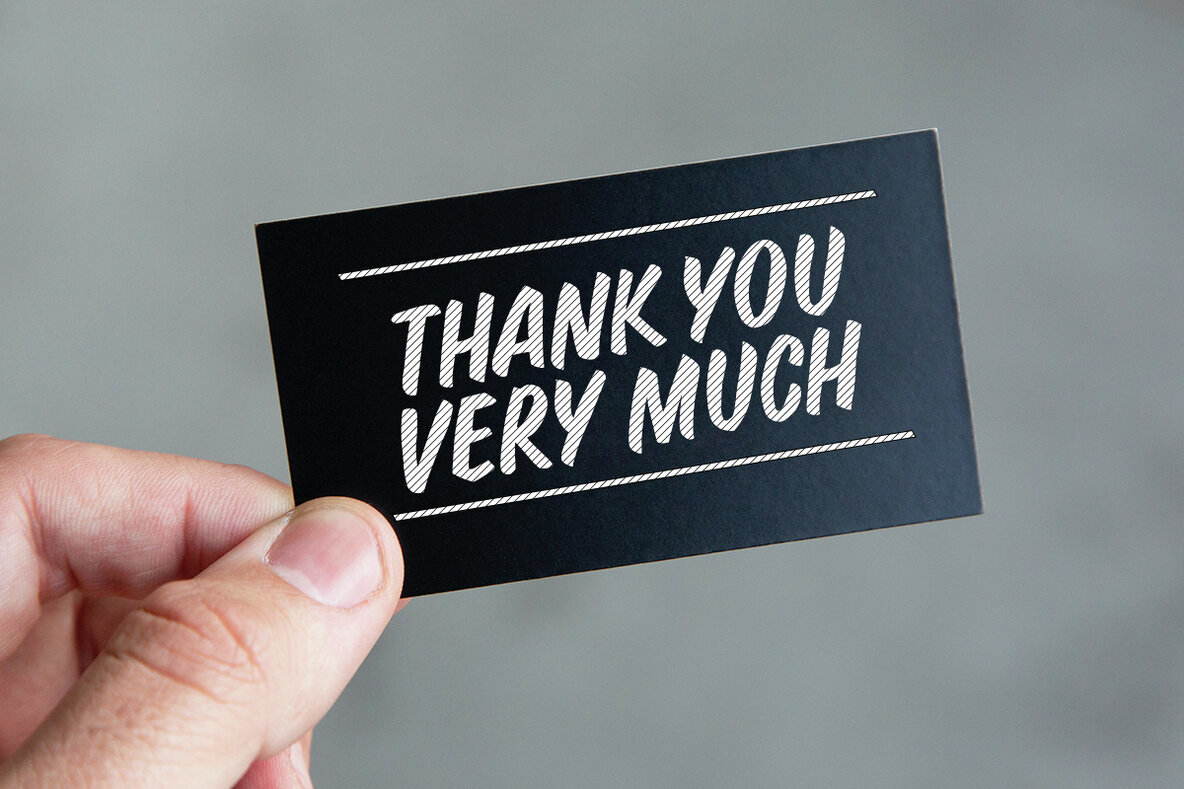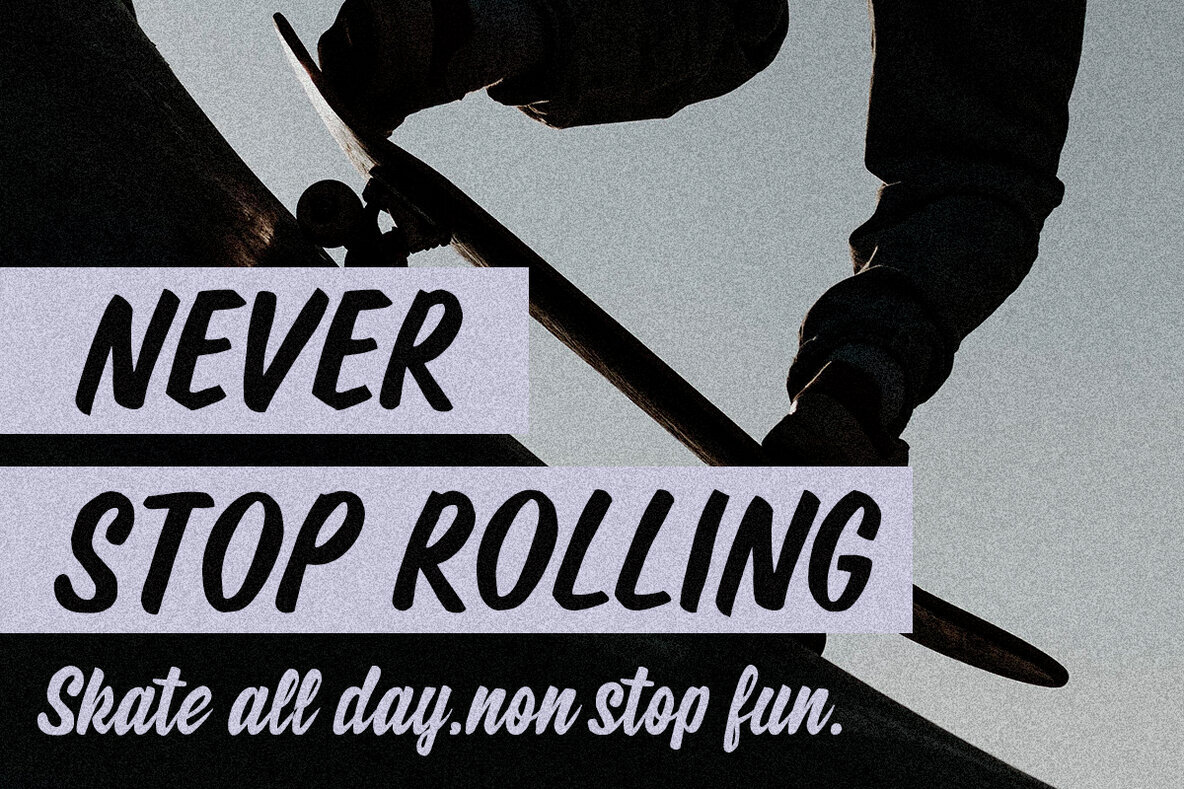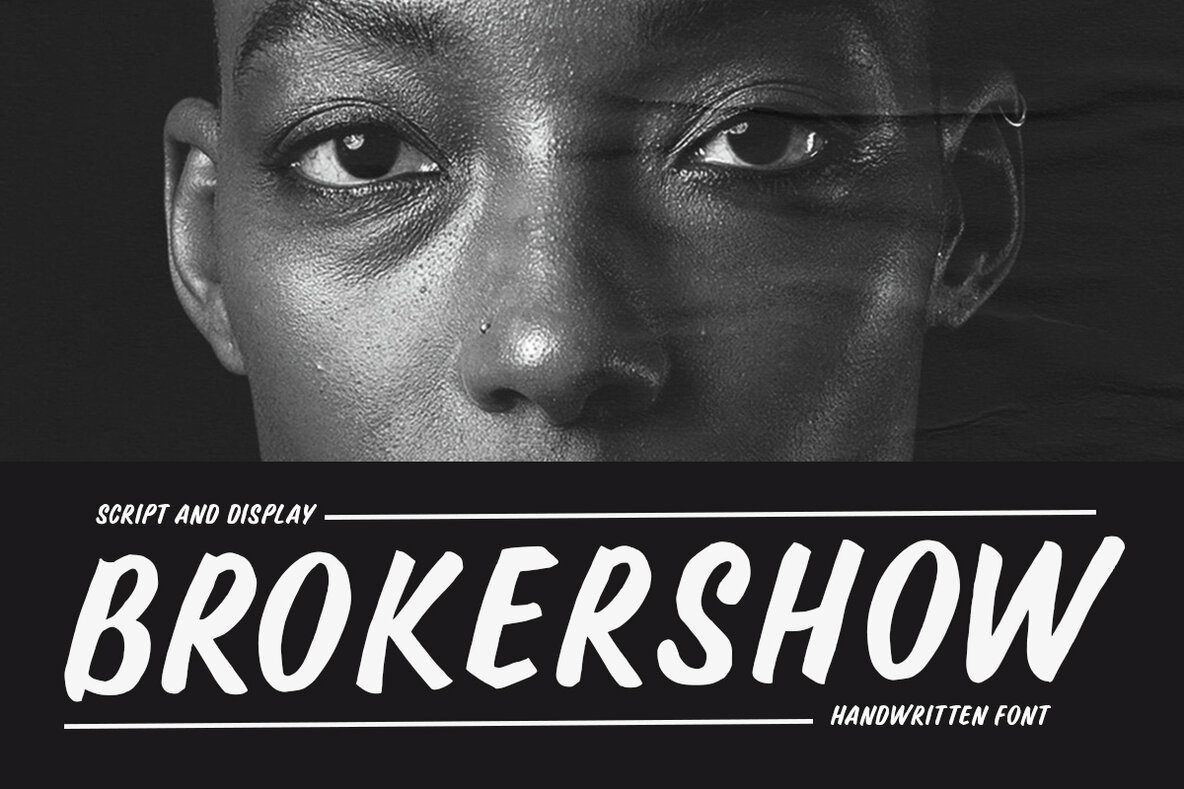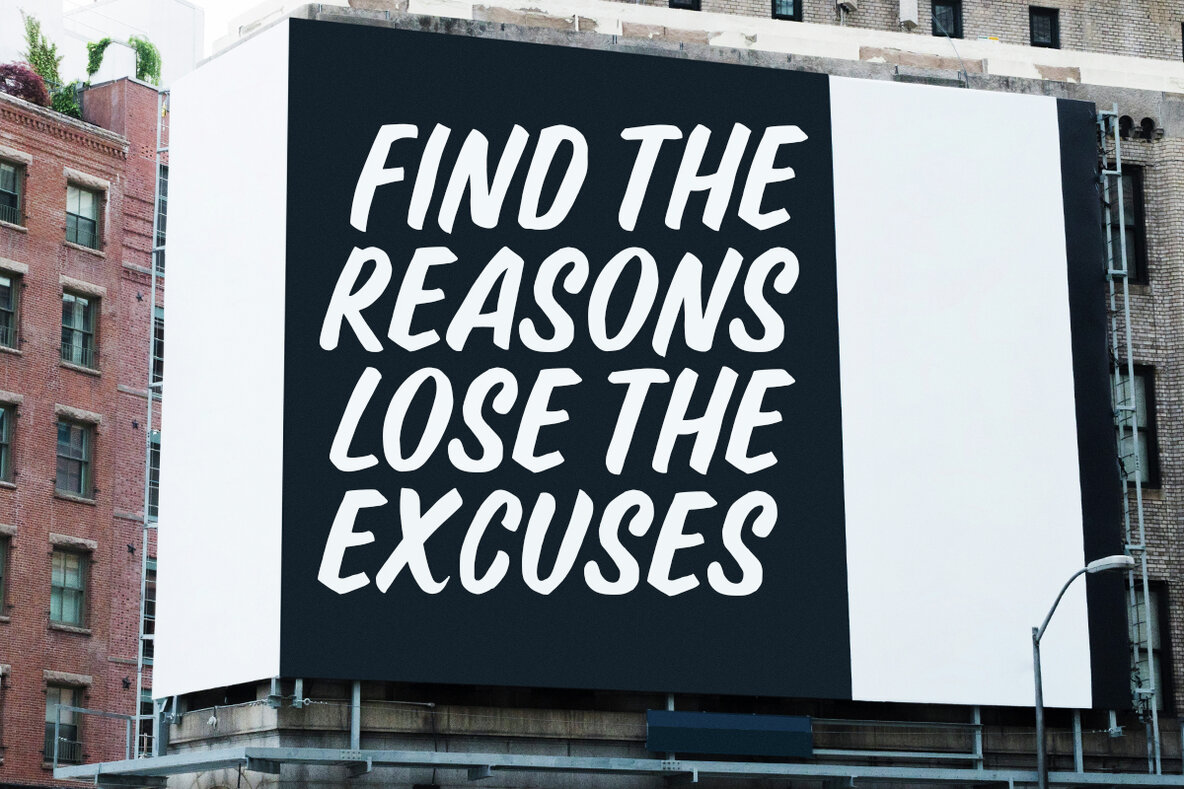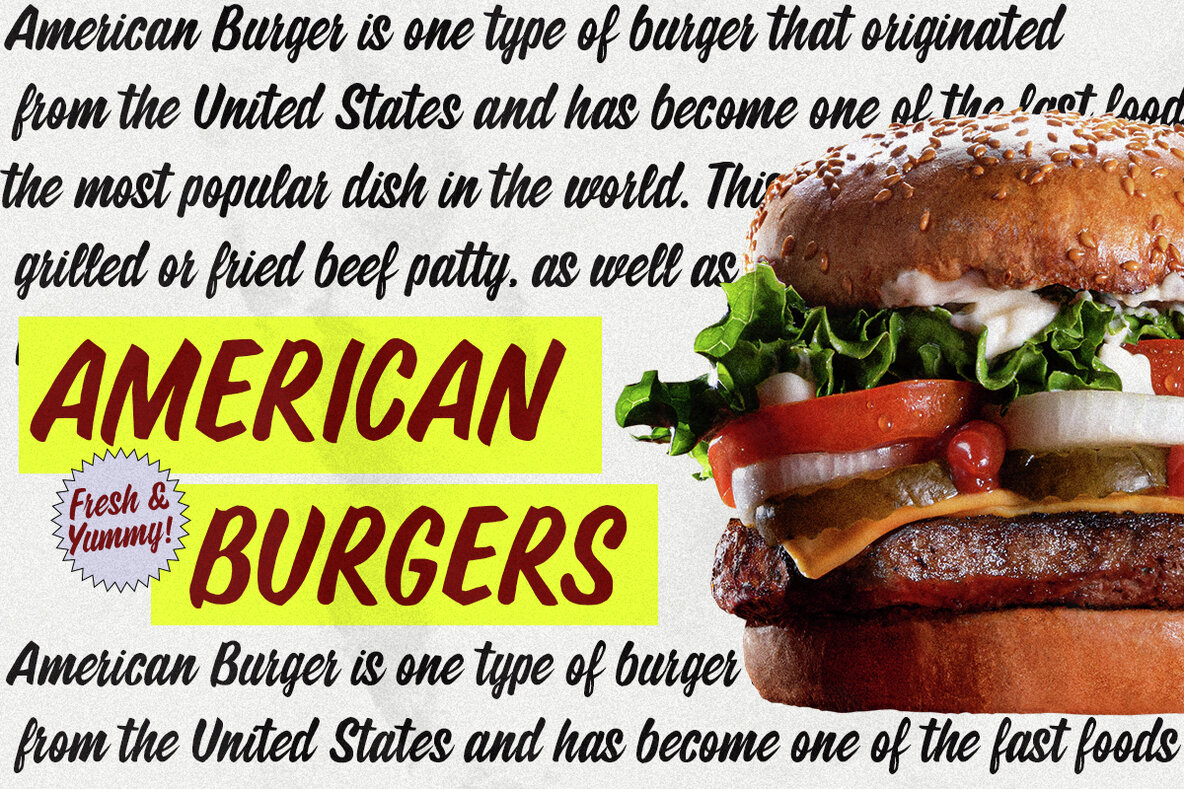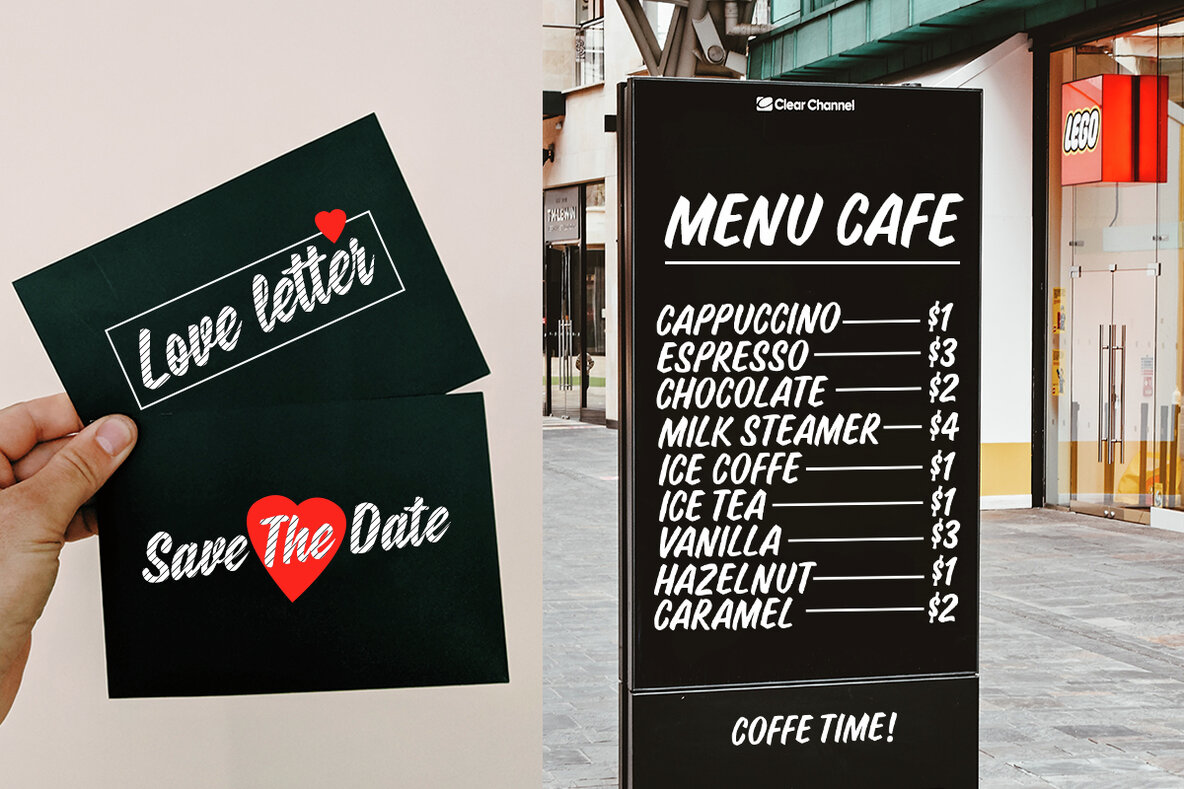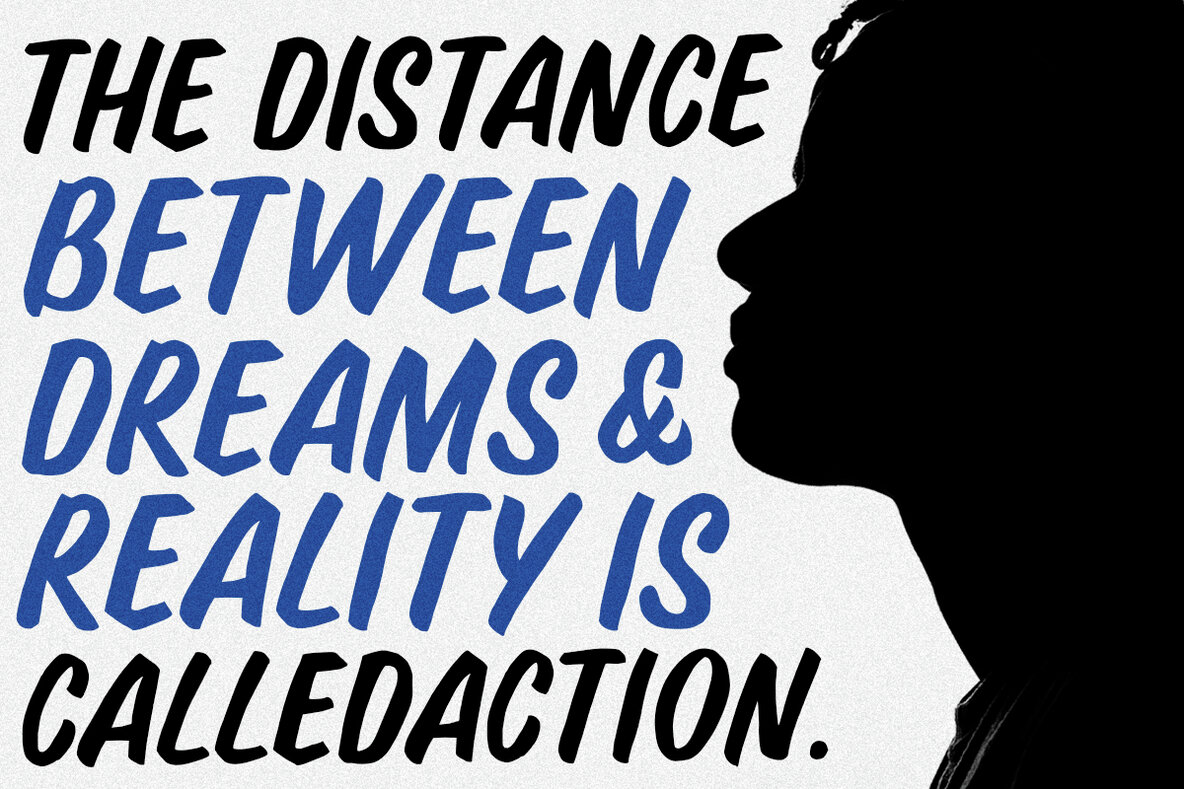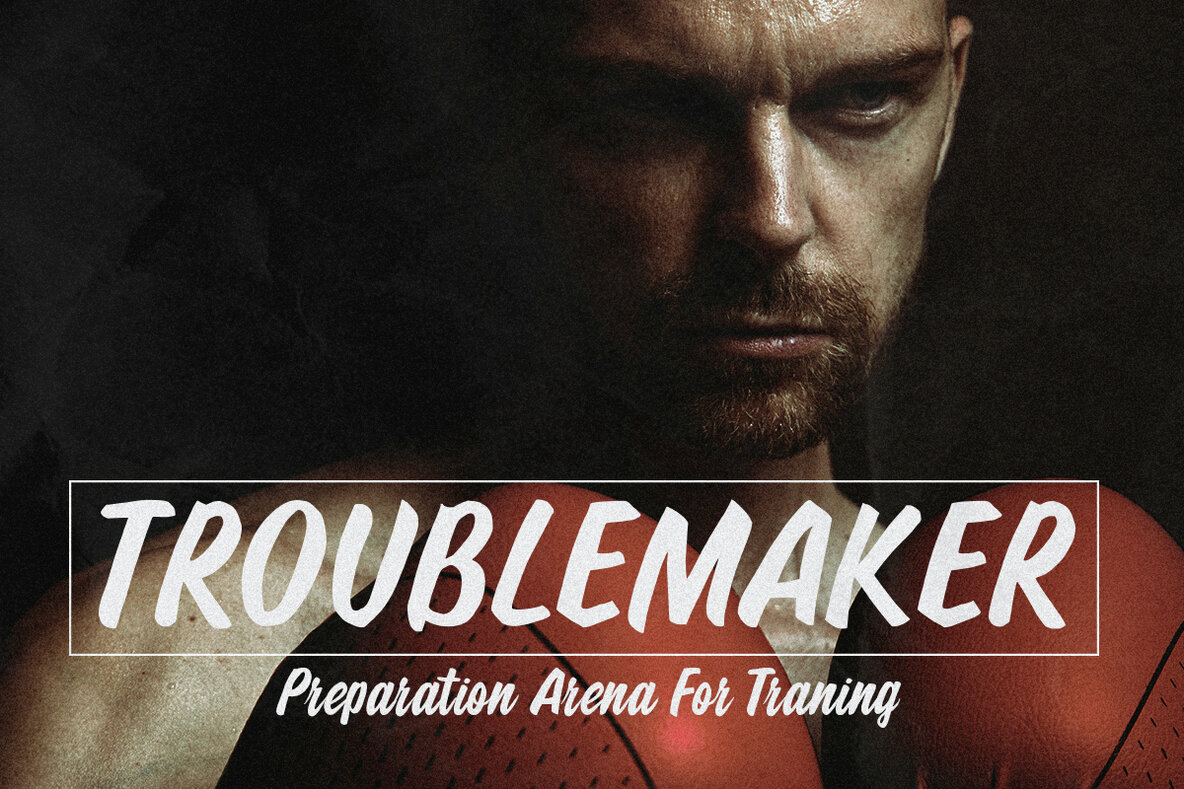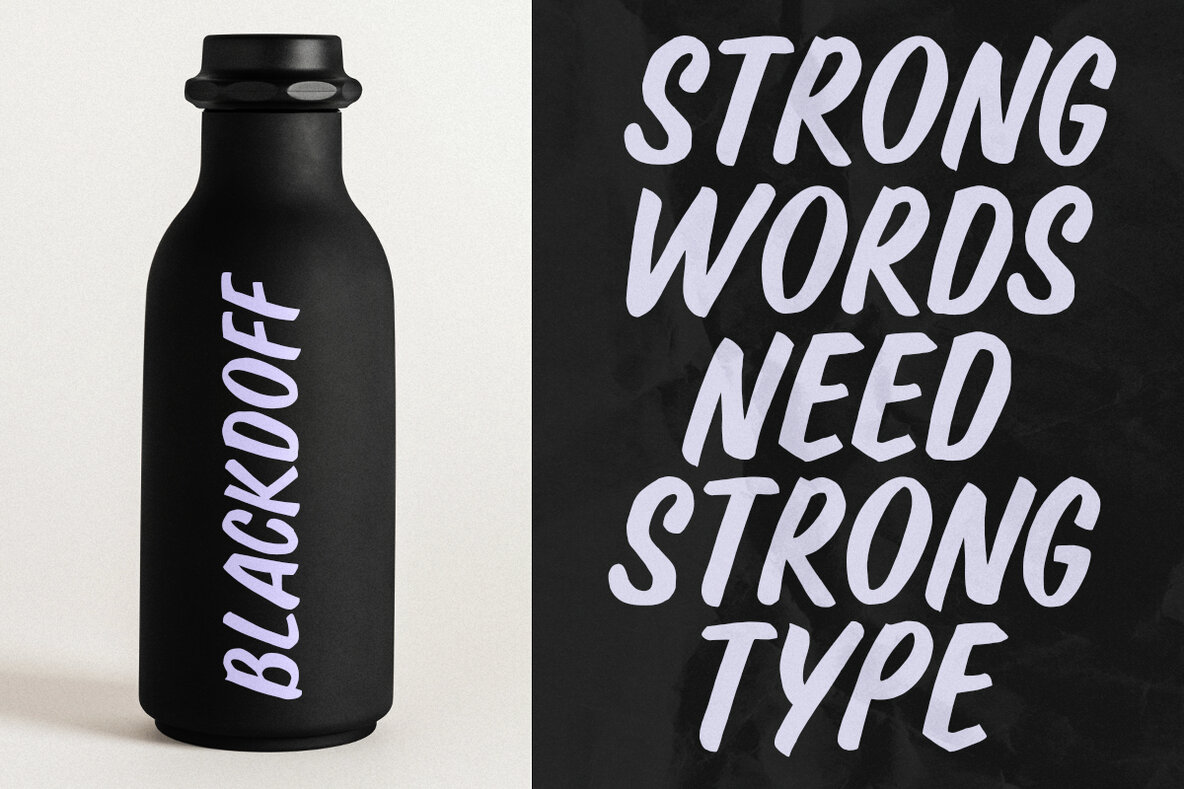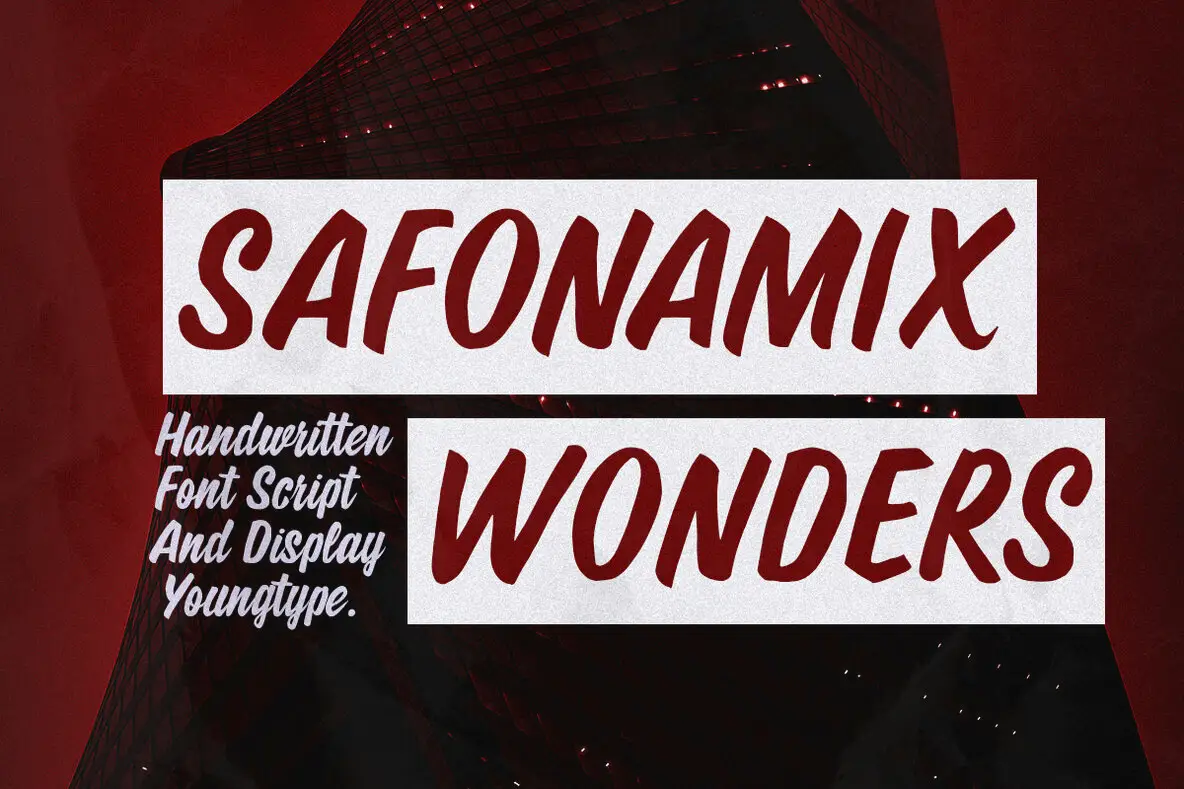
Safonamix Wonders Font
Safonamix Wonders and Safonamix Wonders Script are dynamic hand brush fonts crafted with brushes and ink, perfectly suited for designs that require a thick watercolor or handwriting aesthetic. This typeface excels in various applications such as blog titles, posters, wedding elements, t-shirts, book covers, business cards, greeting cards, branding, and merchandise.
The font includes a comprehensive character set with uppercase and lowercase letters, ligatures, punctuation, numbers, and multilingual support, making it versatile and adaptable for diverse design needs. Ideal for graphic and digital designers aiming to create unique and artistic visuals, Safonamix Wonders adds a personal and handcrafted touch to any project.